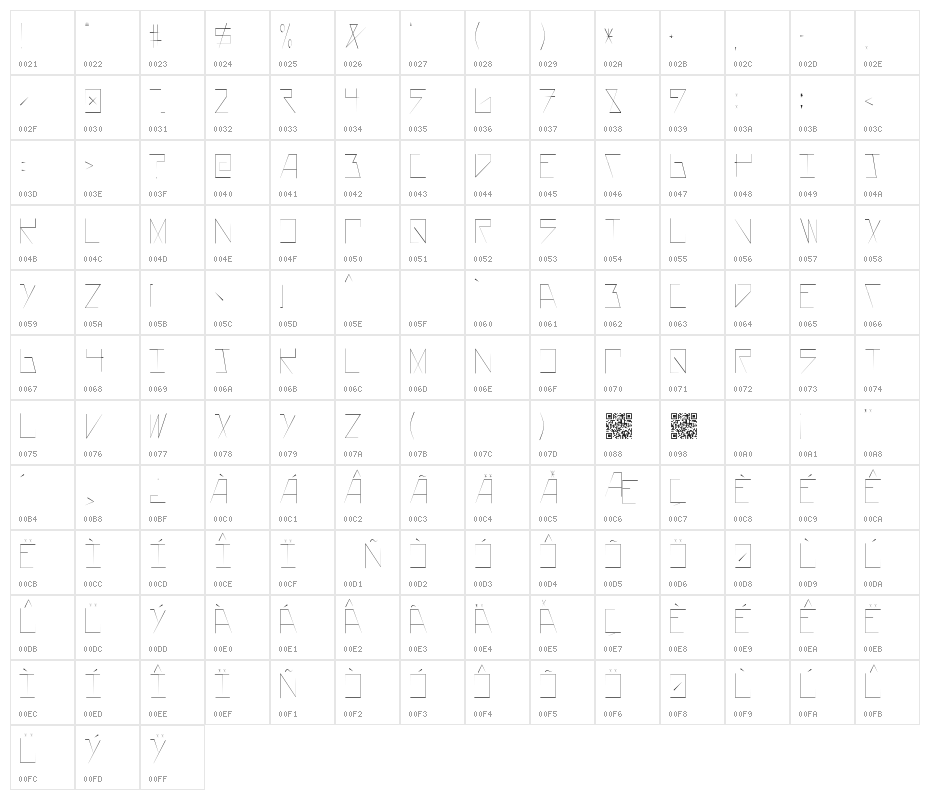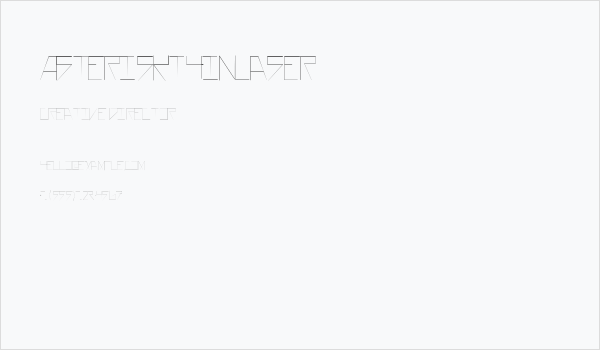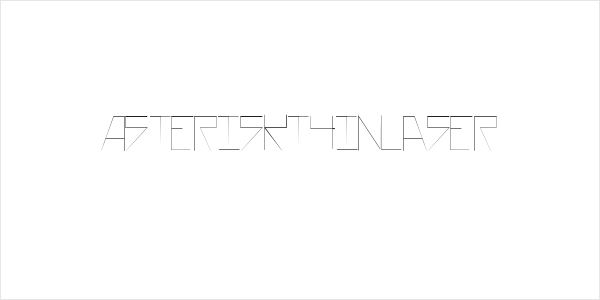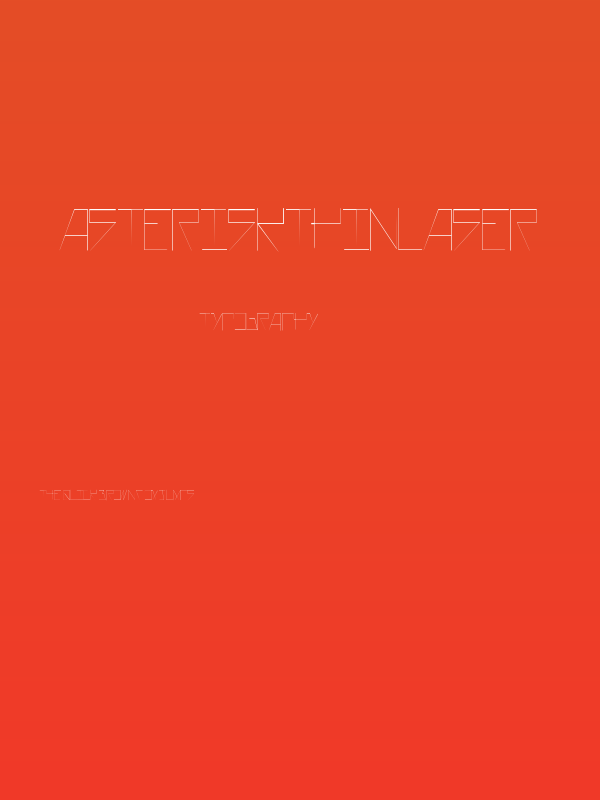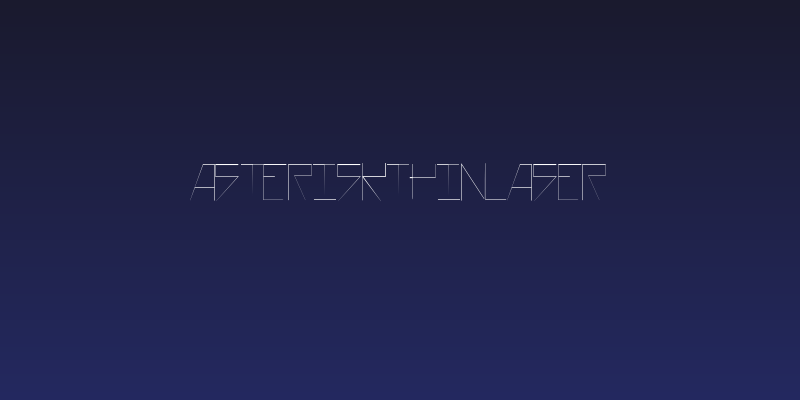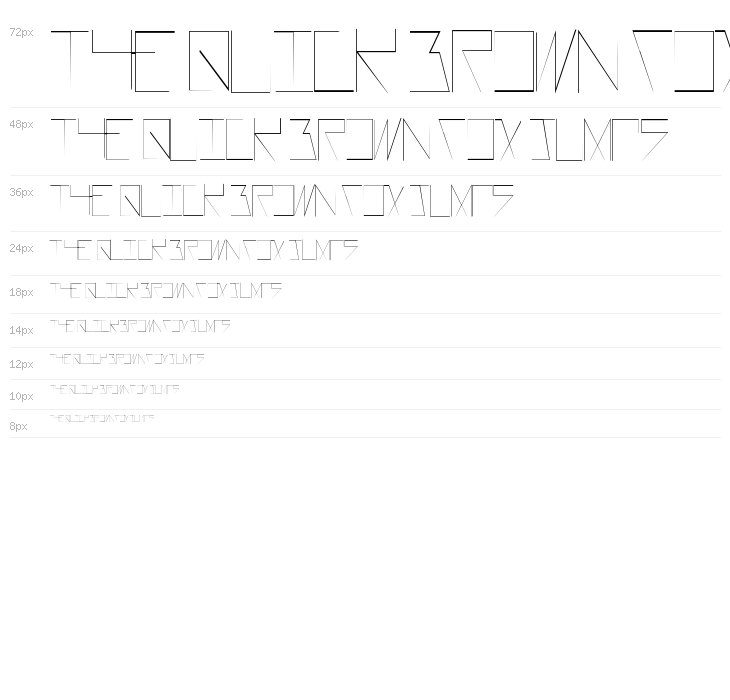
AsteriskThinLaser Font
AsteriskThinLaser Description
This font features a futuristic and geometric design, characterized by thin, precise lines and sharp angles. The characters are constructed with a minimalist approach, giving them a sleek and modern appearance. The uppercase and lowercase letters maintain a consistent style, with some letters having unique, angular cuts that add to the font's distinctiveness. The numerals and special characters follow the same design principles, ensuring uniformity across all glyphs. The font's overall aesthetic is clean and sophisticated, making it suitable for projects that require a contemporary and edgy look.